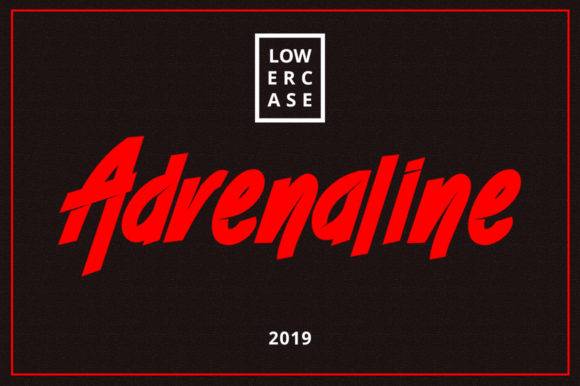
Adrenaline Font for Crafting, Logos and Print Projects
This is a high-energy display font designed to inject motion and boldness into your creative projects. Adrenaline features strong lines and attention-grabbing forms, making it ideal for use in crafting, logo design, and print media. Its dynamic aesthetic lends itself perfectly to projects that require an element of excitement and flair. Whether you're designing for digital platforms or physical merchandise, Adrenaline stands out as a versatile choice. For those looking to elevate their work, this angker font for stylish crafting brings an unparalleled edge to any design. Additionally, the versatility of the alfaletter font features and benefits ensures that it can seamlessly fit into a variety of design contexts, from posters to social media graphics. Its unique character shapes and contemporary style not only capture attention but also convey a sense of modernity that resonates with today's audiences. This combination of functionality and aesthetic appeal makes it a powerful tool for any designer looking to make a lasting impression.
As a font entity, it brings a punchy, active personality to both personal and professional designs. Whether you're designing a sports brand, an event poster, or a product label, Adrenaline gives your typography the intensity it needs.
Created with versatility in mind, it suits everything from vinyl decals and merchandise to bold headlines and creative branding assets.
- Logo marks and word-based branding
- Poster titles and flyer headers
- Sports-themed decals and apparel
- Stickers, tags, and promotional materials
- Packaging and print collateral
- Bold, high-energy letterforms
- Perfect for sports, gaming, and urban themes
- Instant impact in any project
Q: What type of font is Adrenaline?
A: Adrenaline is a bold display font designed to add intensity and energy to crafting, branding, and print projects.
Q: Is it suitable for sports branding?
A: Yes, Adrenaline’s aggressive and strong style makes it ideal for sports teams, events, and fan merch.